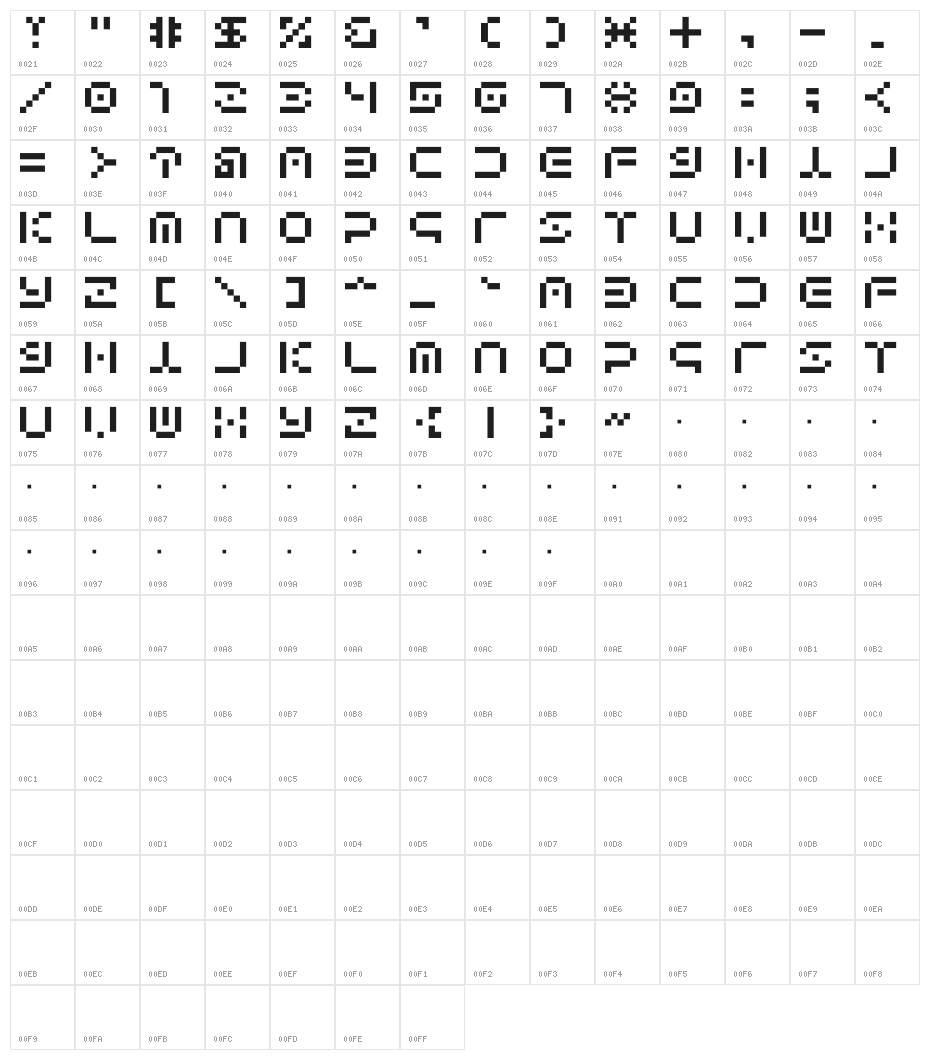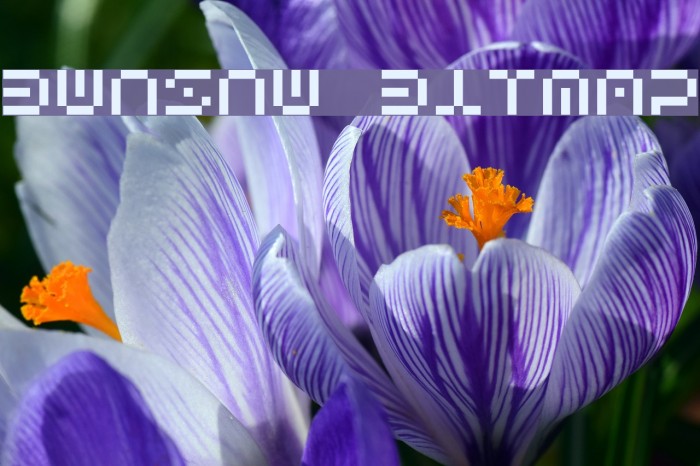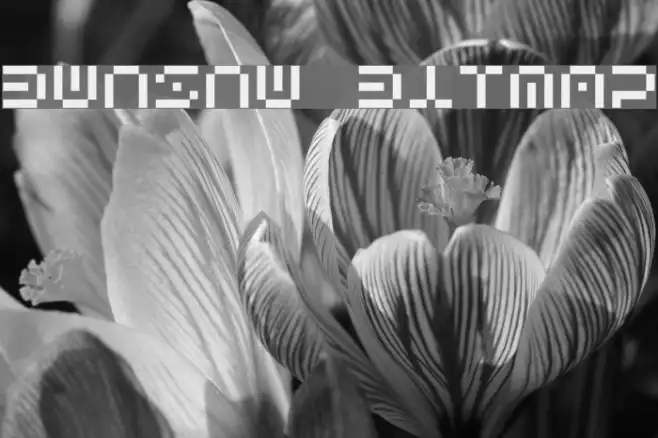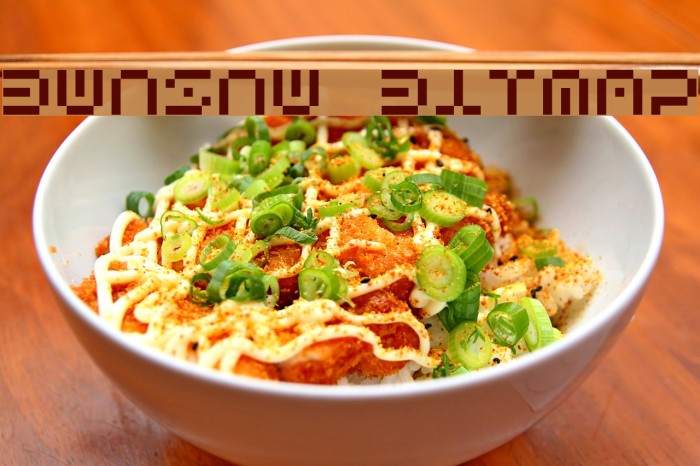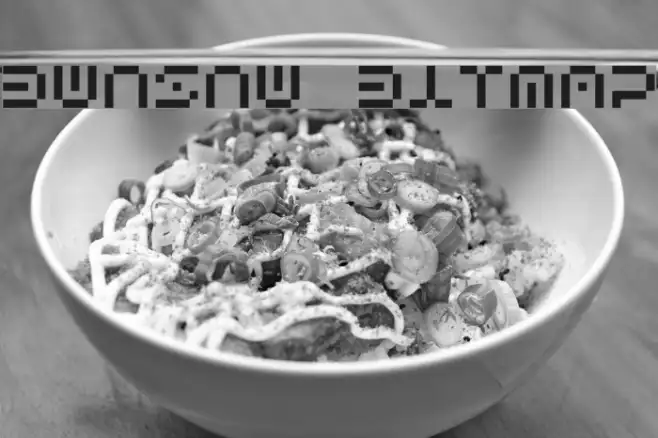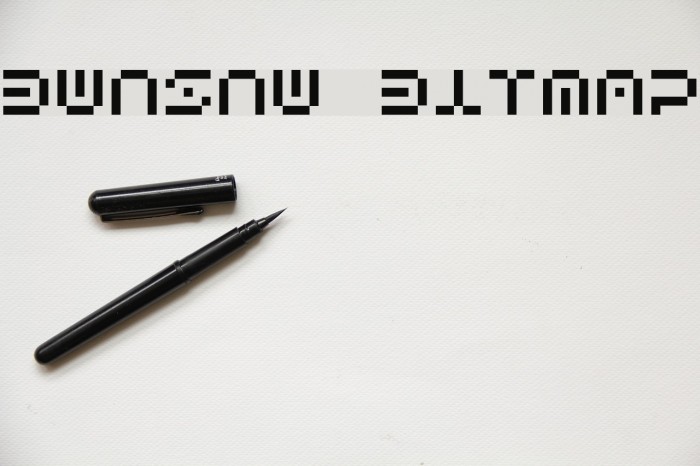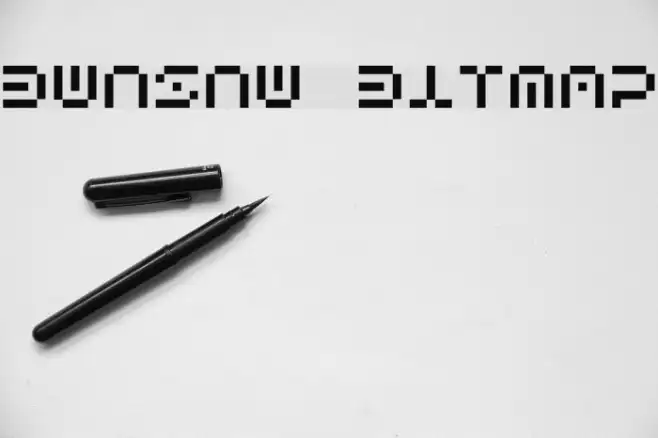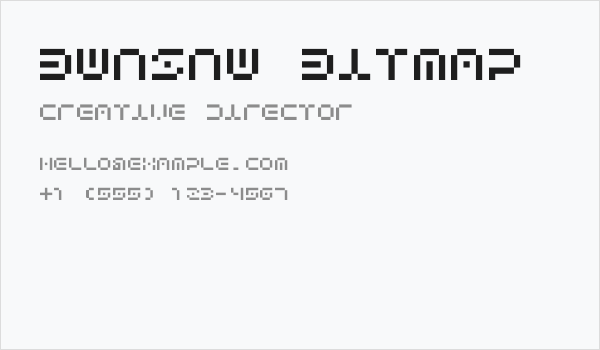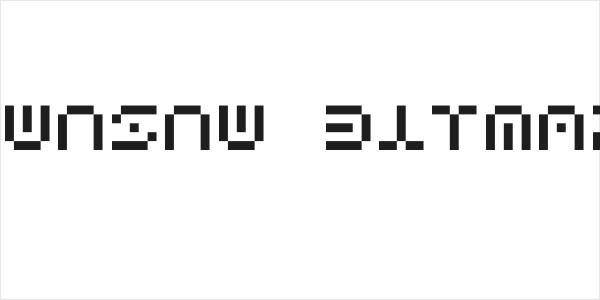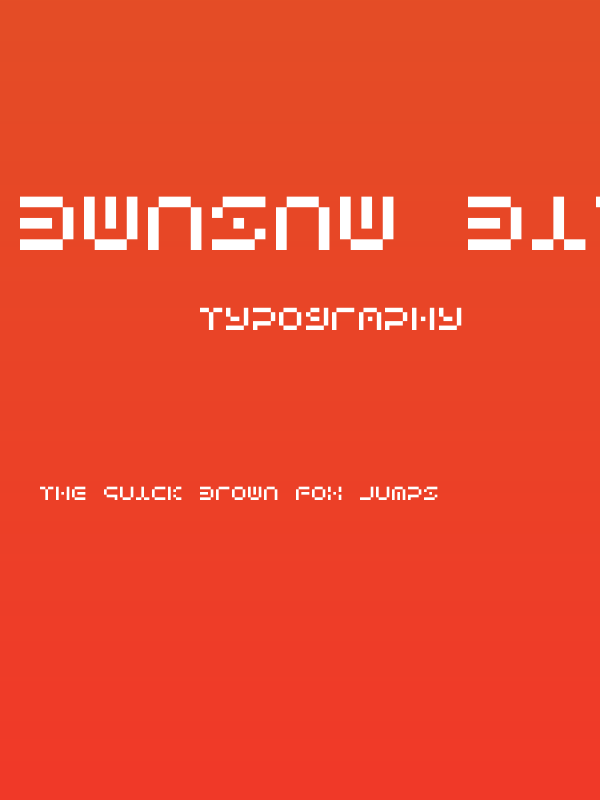
Bwnsnw Bitmap Font
Bwnsnw Bitmap Description
This font features a distinct pixelated design, reminiscent of early digital displays and video game graphics. Each character is constructed with a grid-like structure, giving it a blocky and geometric appearance. The uniformity in height and width across all characters creates a cohesive and consistent look. The uppercase and lowercase letters maintain a similar style, with slight variations to distinguish them. Numbers and special characters are crafted with the same pixelated precision, ensuring readability and a retro aesthetic. This font is ideal for projects that aim to evoke nostalgia or a digital, tech-inspired theme.
| Use Case | Logos, Headlines, Digital displays |
| Proposed Projects | Ideal for retro video games, digital art projects, tech-themed posters, and nostalgic branding. |